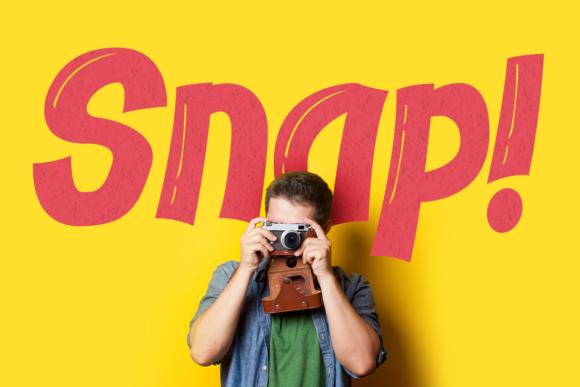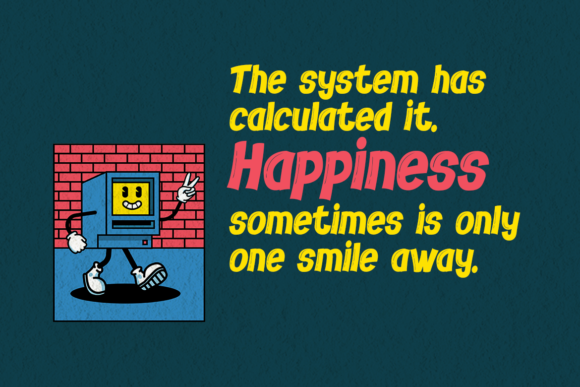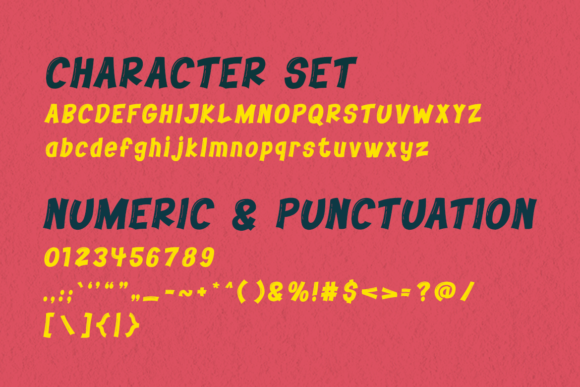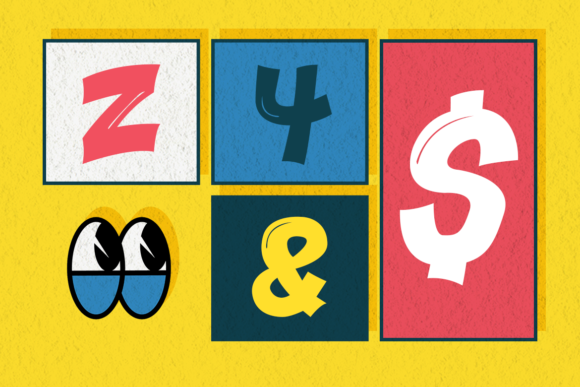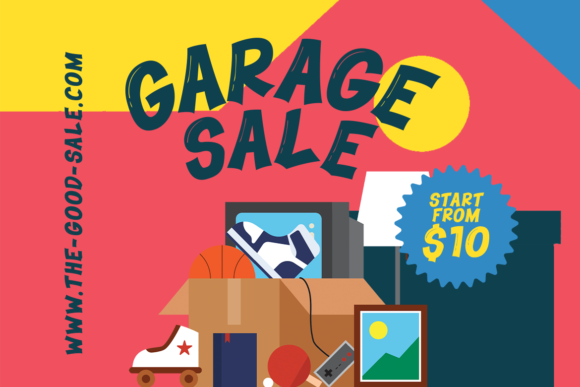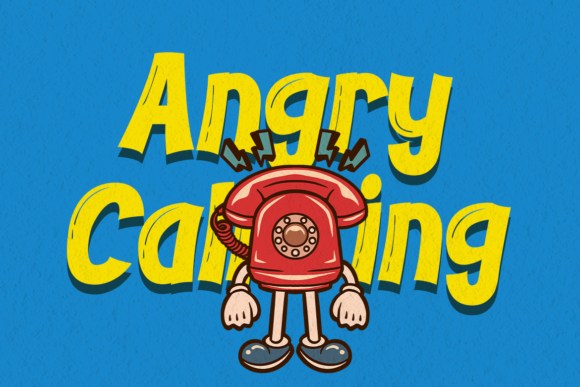
Cow Mix Font: The Fun and Bubbly Display Font You’ll Love
Are you tired of using the same old fonts for your designs and crafts? Look no further than Cow Mix Font, a fun, cool, and bubbly display font that’s perfect for a variety of projects. Whether you’re a designer, crafter, or simply someone who loves to get creative, Cow Mix Font is sure to become your new go-to font.
What is Cow Mix Font?
Cow Mix Font is a display font that’s designed to add a touch of fun and personality to your projects. Its bubbly and playful style makes it perfect for a wide range of applications, from digital design and presentations to crafts and greeting cards. The font’s unique and quirky style is sure to grab attention and make your projects stand out.
Features of Cow Mix Font
Cow Mix Font has a number of features that make it a great choice for designers and crafters. Some of its key features include:
- Fun and playful style: Cow Mix Font has a bubbly and playful style that’s perfect for adding a touch of personality to your projects.
- High-quality design: The font is designed with high-quality graphics, ensuring that it looks great in any size or application.
- Versatile: The font can be used for a wide range of projects, from digital design and presentations to crafts and greeting cards.
Uses for Cow Mix Font
Cow Mix Font is a versatile font that can be used for a wide range of projects. Here are some ideas to get you started:
- Digital design: Use Cow Mix Font to add a touch of fun and personality to your digital designs, such as social media graphics, blog posts, and website headers.
- Crafts: Cow Mix Font is perfect for crafters who love to make handmade cards, gift tags, and other paper crafts.
- Presentations: Add some personality to your presentations with Cow Mix Font, perfect for making your slides stand out.
- Greeting cards: Use Cow Mix Font to create fun and playful greeting cards for birthdays, holidays, and other special occasions.
Why You’ll Love Cow Mix Font
So why will you love Cow Mix Font? Here are just a few reasons:
- It’s fun and playful: Cow Mix Font is the perfect way to add some personality and whimsy to your projects.
- It’s versatile: The font can be used for a wide range of projects, making it a great addition to your font library.
- It’s high-quality: The font is designed with high-quality graphics, ensuring that it looks great in any size or application.
Tips for Using Cow Mix Font
Here are a few tips for using Cow Mix Font:
- Use it sparingly: Cow Mix Font is a bold and playful font, so use it sparingly to add emphasis and personality to your projects.
- Pair it with other fonts: Cow Mix Font pairs well with other fonts, so try pairing it with a simpler font to create contrast and visual interest.
- Experiment with colors: Cow Mix Font looks great in a variety of colors, so don’t be afraid to experiment and find the perfect color for your project.